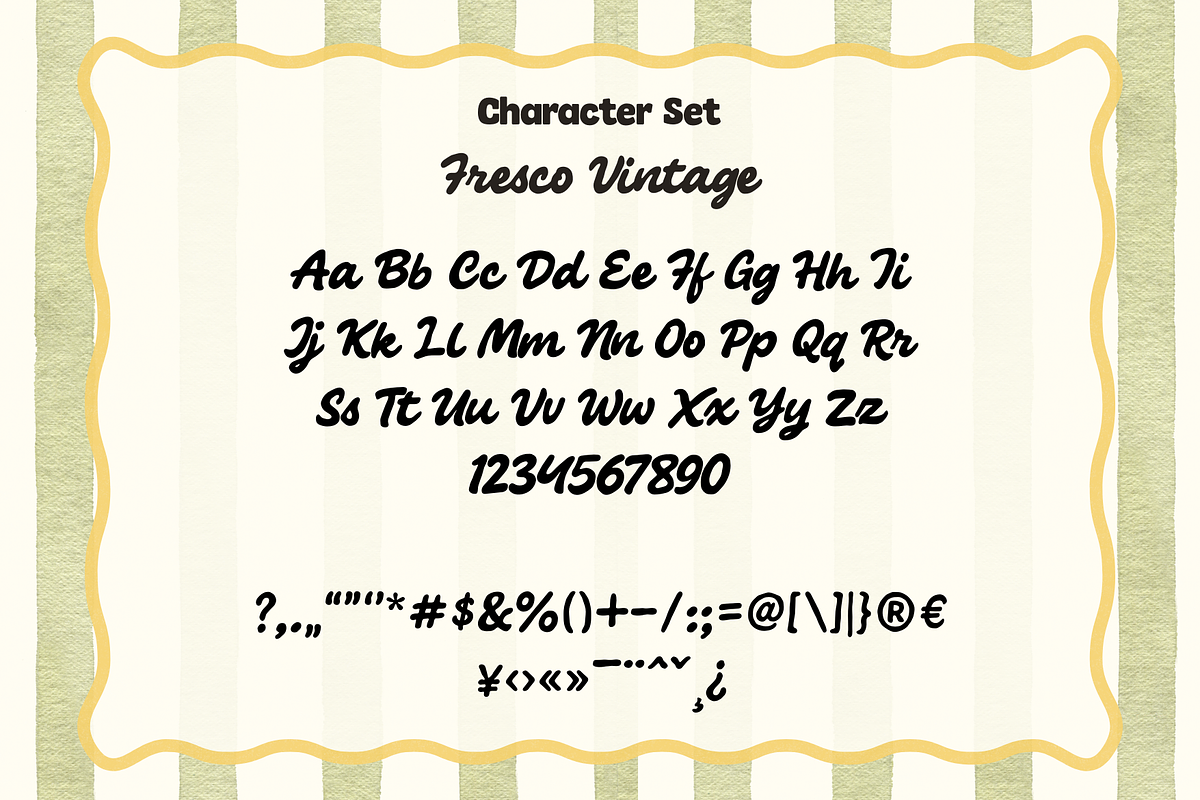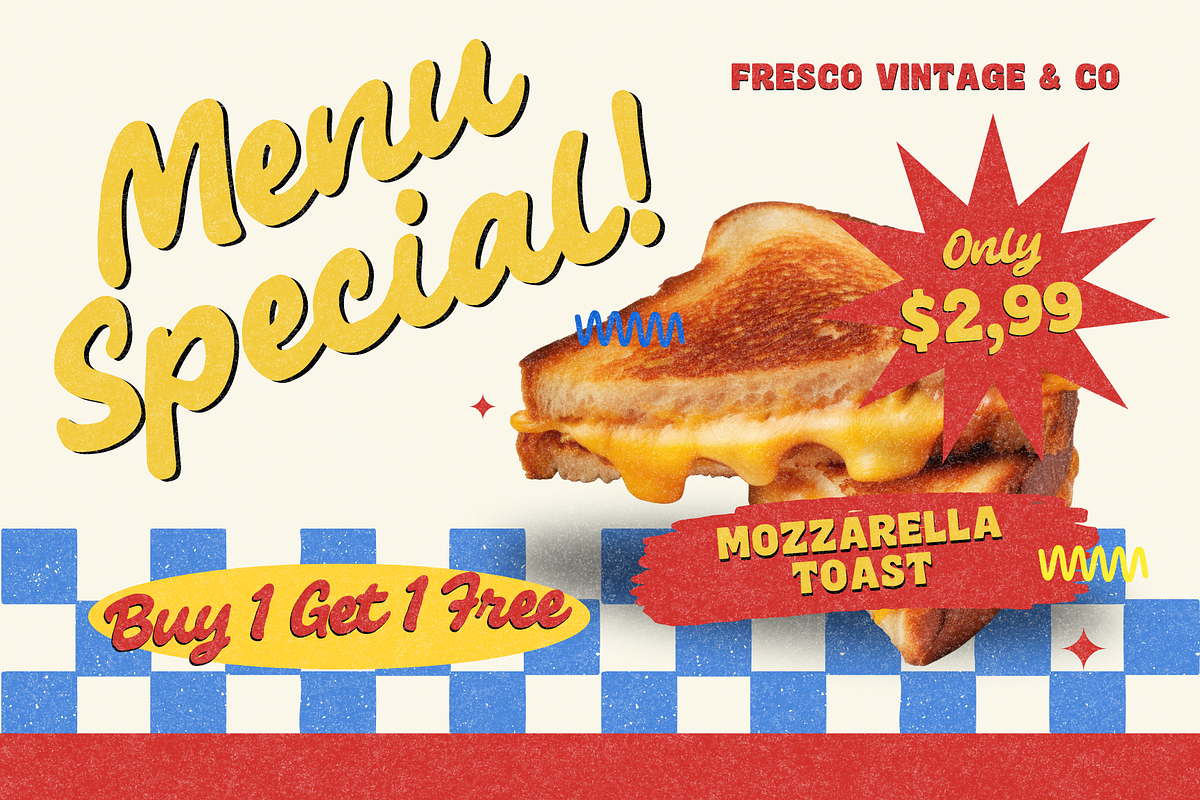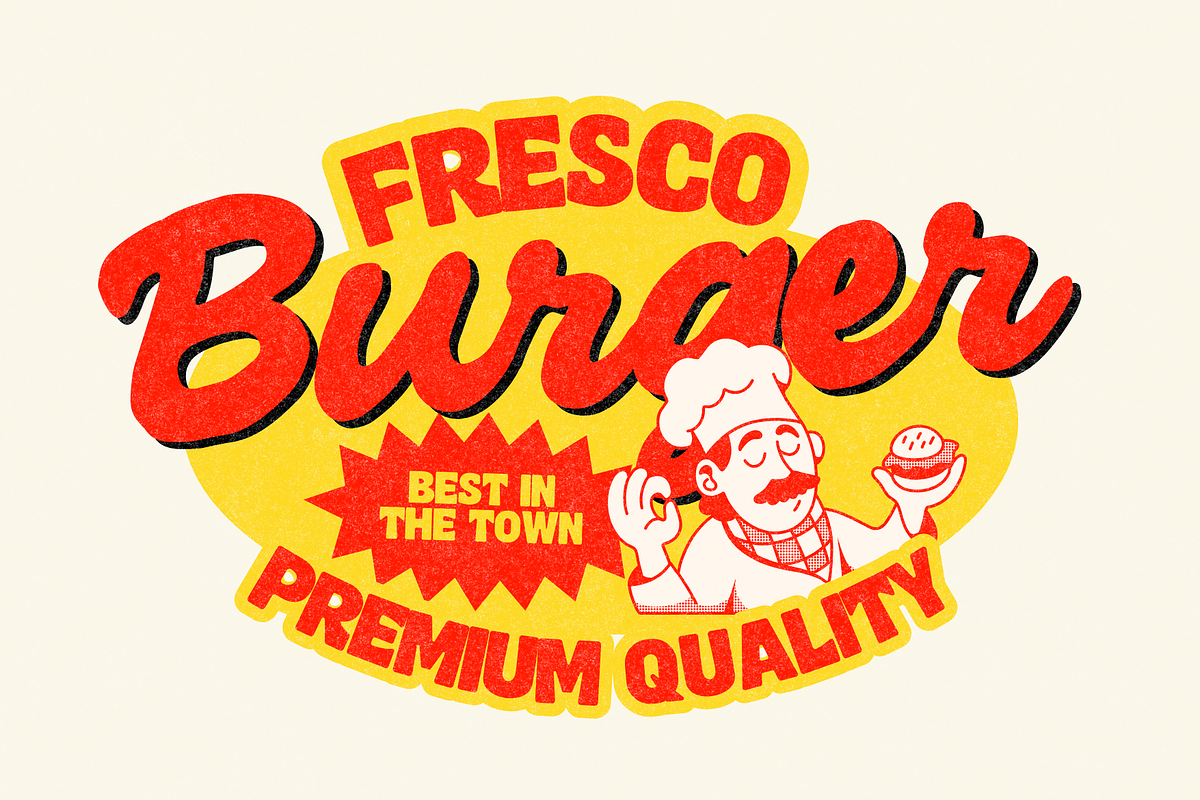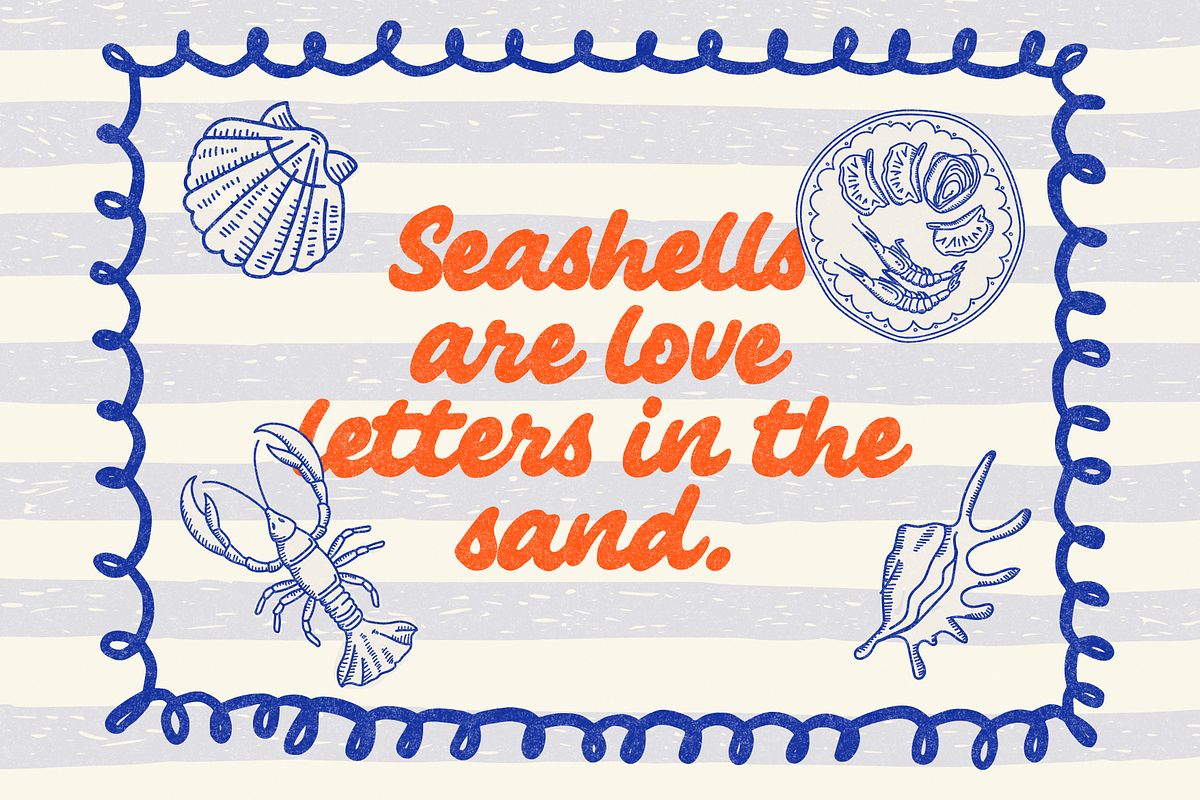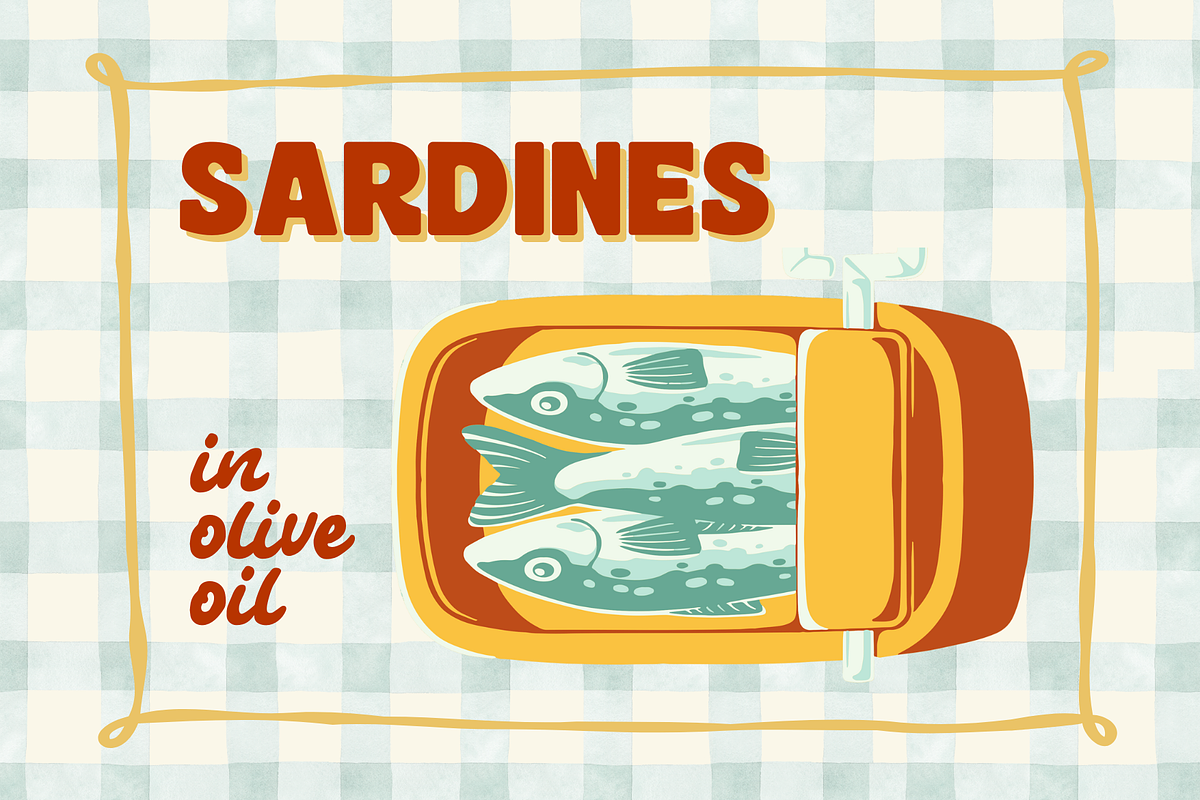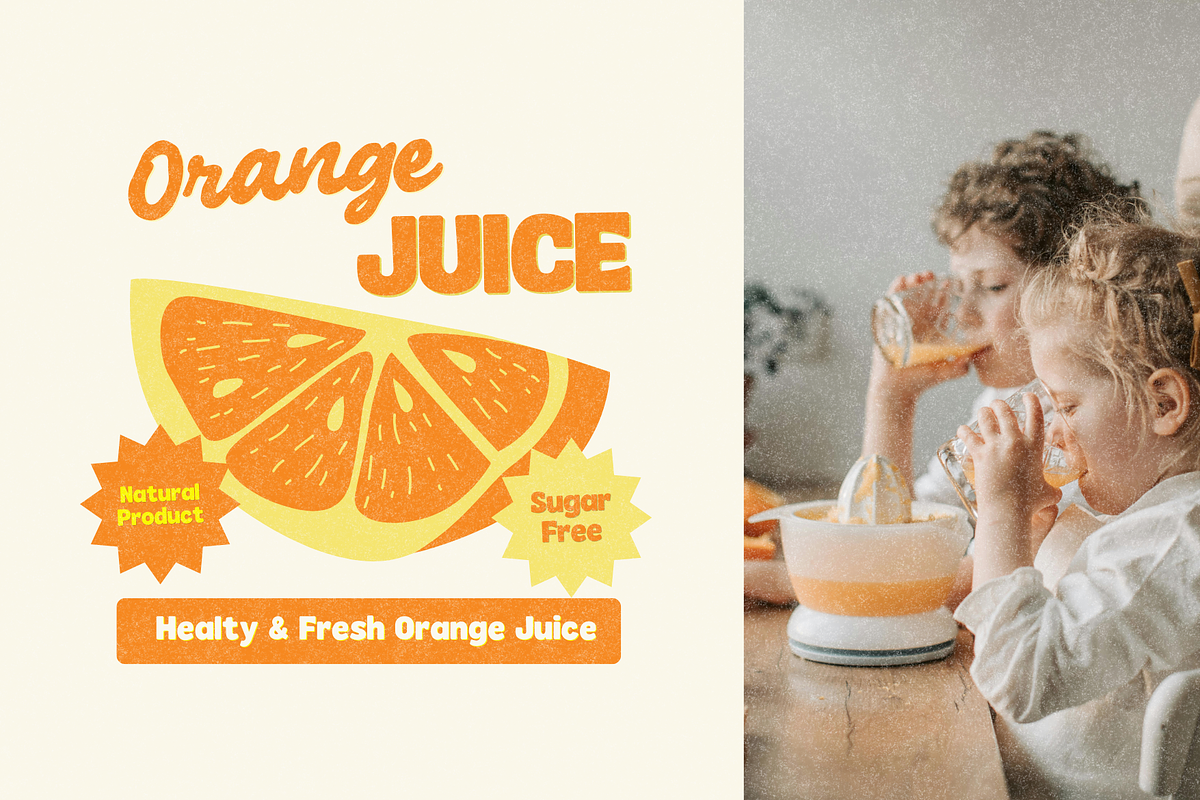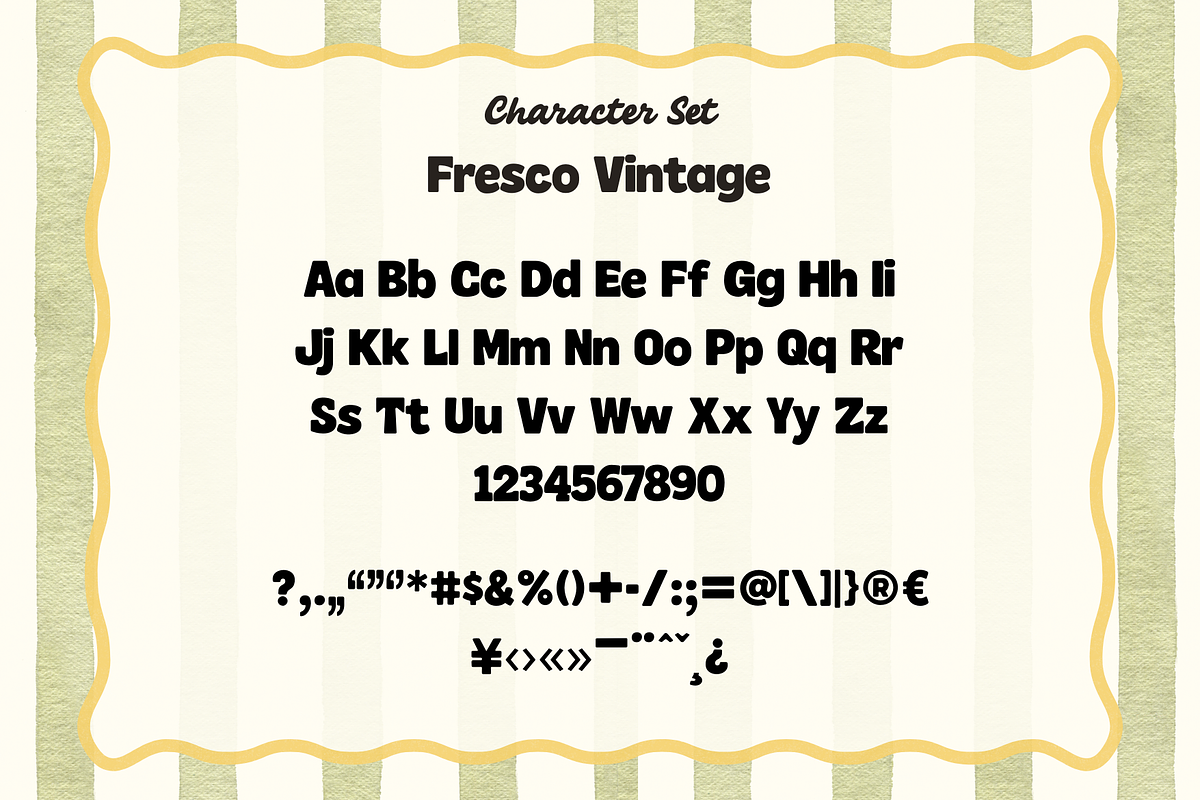
Fresco Vintage – Authentic Retro Duo
Fresco Vintage – Authentic Retro Duo Typeface
Bring back the charm of retro packaging and timeless food labels with Fresco Vintage, a bold sans + smooth script duo typeface designed by Creacy Studio. Inspired by classic grocery signage, coastal cafés, and mid-century food advertisements, Fresco Vintage blends playful script flow with chunky bold sans to create a truly authentic retro vibe.
What’s Inside
- Fresco Vintage Sans – Bold, geometric, and slightly textured sans serif. Perfect for attention-grabbing headlines and packaging.
- Fresco Vintage Script – Smooth, connected script with a retro flair, ideal for taglines, quotes, and branding accents.
- Seamless pairing between Sans & Script
- Retro-inspired texture for authentic vintage look
- Retro packaging design (canned food, juice, pasta, diner menus)
- Café & restaurant branding
- Vintage posters & social club flyers
- Summer product labels & merchandise
- Playful social media templates
Tip: Combine the bold sans for strong titles with the smooth script for subtext to instantly achieve a nostalgic retro design!
This font will bring your designs to life with warmth, charm, and vintage authenticity – making it a must-have for designers who love the timeless retro aesthetic.